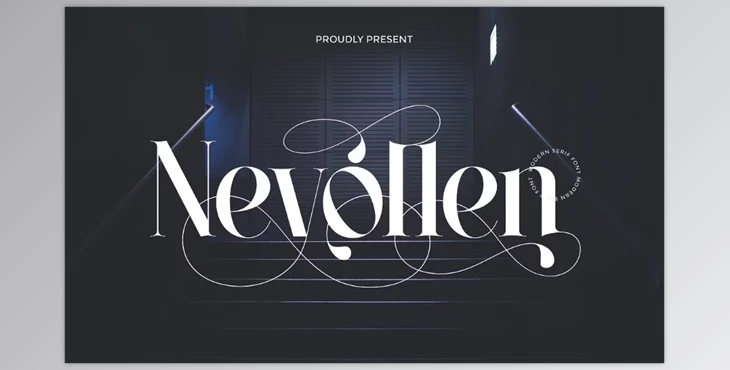
Nevollen - Modern Serif Font:
Nevollen is a modern serif font blending contemporary style and refined form. With striking contrast, sharp serifs, and sleek letterforms, it draws on an editorial design novel. It is perfect for fashion branding, editorial layouts, and sophisticated packaging. Each letter is balanced with modern minimalism and timeless detail, creating credibility and elegance in typographic designs. The font has graceful alternates and unique ligatures that give additional customization to make the designs stand out with rich uniqueness.
Some great features of Nevollen - Modern Serif Font:
- Uppercase & Lowercase Characters
- Alternates & Ligatures
- Numerals & Punctuation
- Multilingual Support
Refined typographic art makes Nevollen perfect for luxury brands and fashion designers. It was designed for modern elegance by branding agencies and editorial teams who want a new touch to their work. Packaging designers, logo creators, and even romantic style lovers in the events and wedding industry will enjoy the expressive typeface. From print and digital design to experiential design, Nevollen embodies class and creativity that makes every project stand out.
Nevollen is more than a typeface; it is a sophisticated and elegant brand. It accentuates brand identity, product packaging, and logo design, making it a staple while crafting visuals for modern luxury products. Every design is elevated with artistry due to its elegant curves, high-contrast strokes, and refined gilded alternates. Customization is limitless with Nevollen, making your typography distinctive and personal through bespoke typographic artistry. It claims space instead of merely filling it by commanding attention, narrating a story, and accenting every detail. Make your design unforgettable with bold beauty by choosing Nevollen and elevating expression.